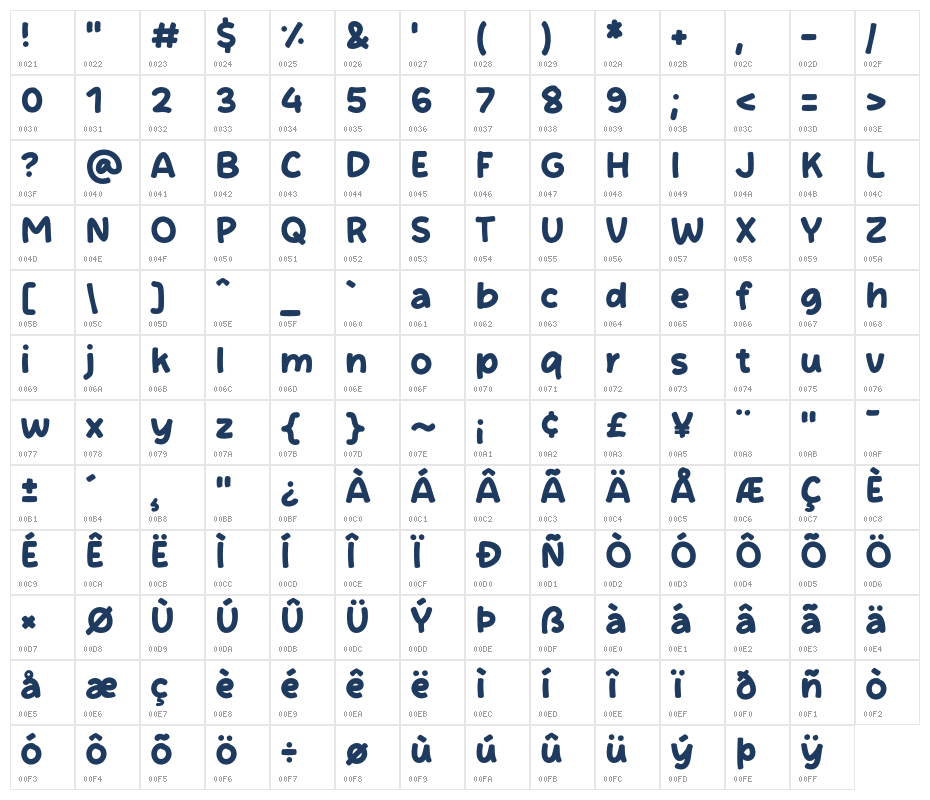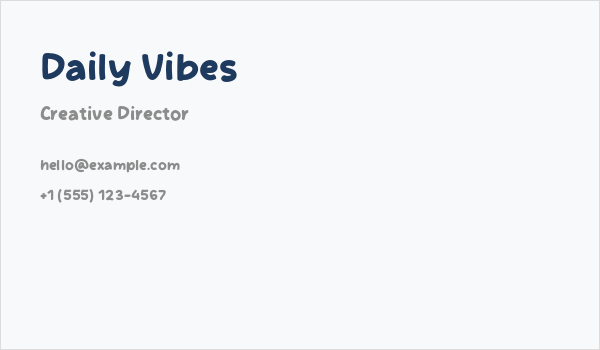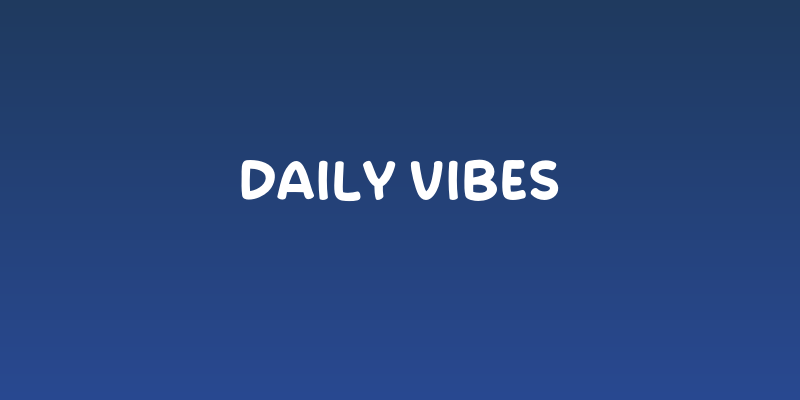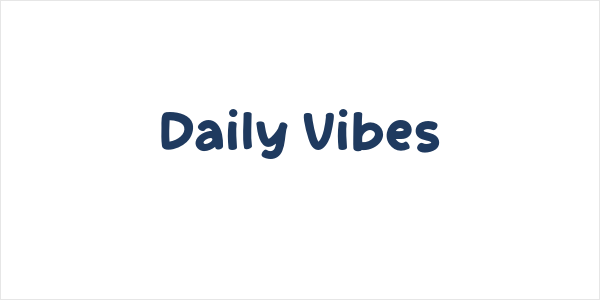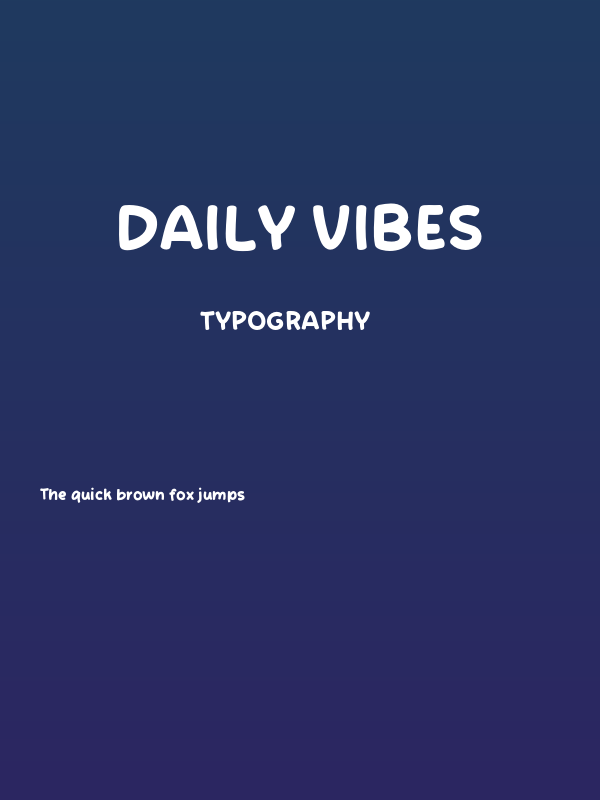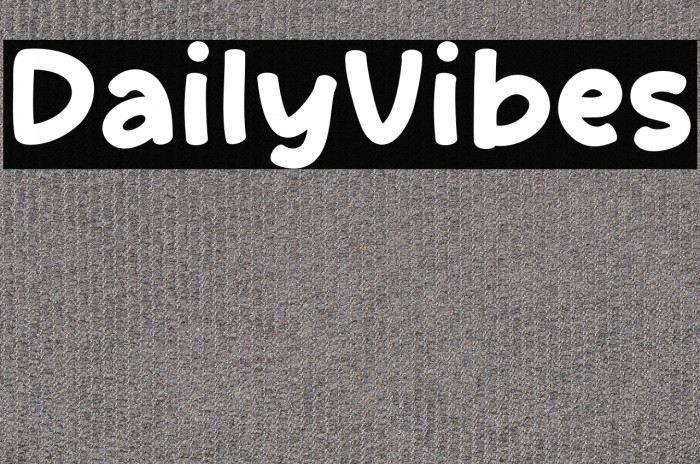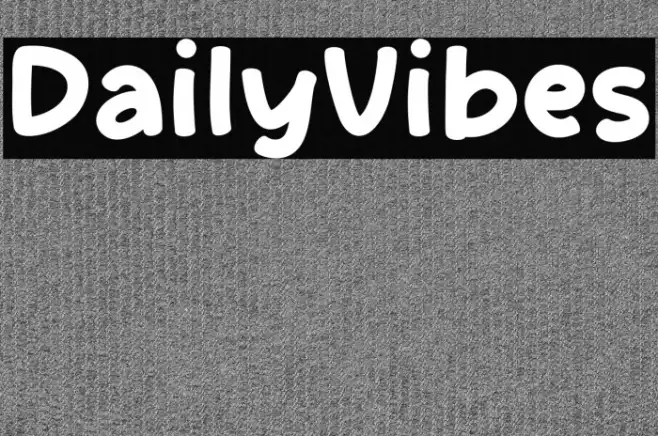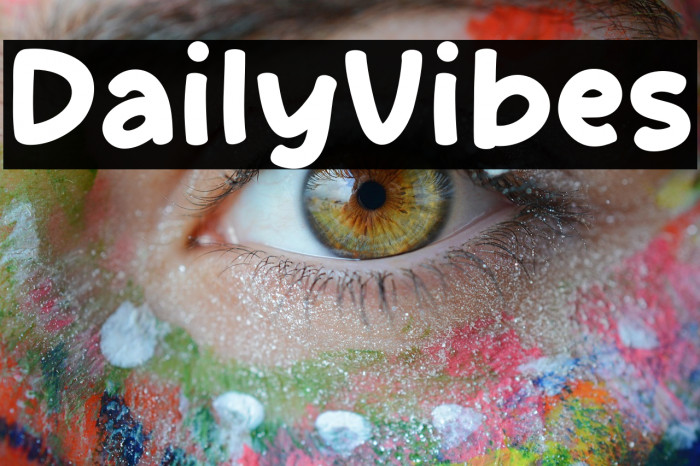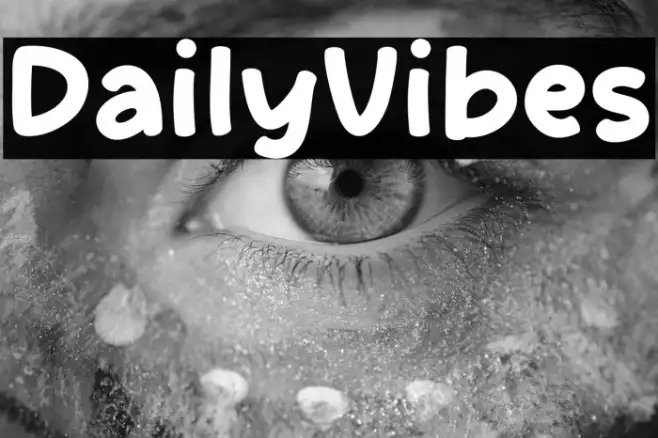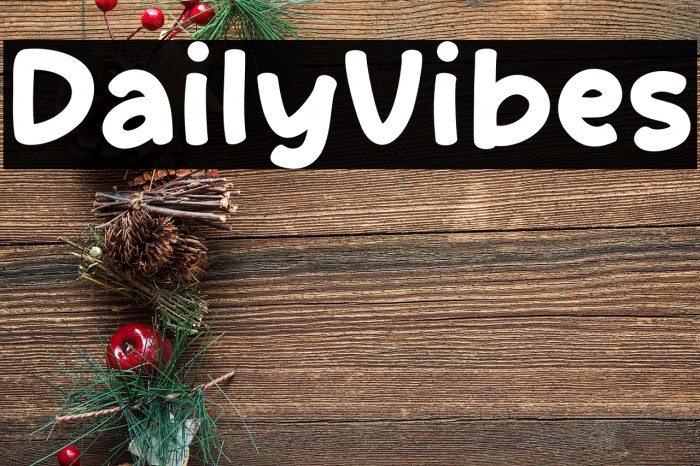
Daily Vibes Font
A playful, rounded, and bold sans-serif font with a casual, friendly appearance.
| Overall Style | Casual, Friendly, Playful |
| Use Case | Headlines, Logos, Children's materials, Posters |